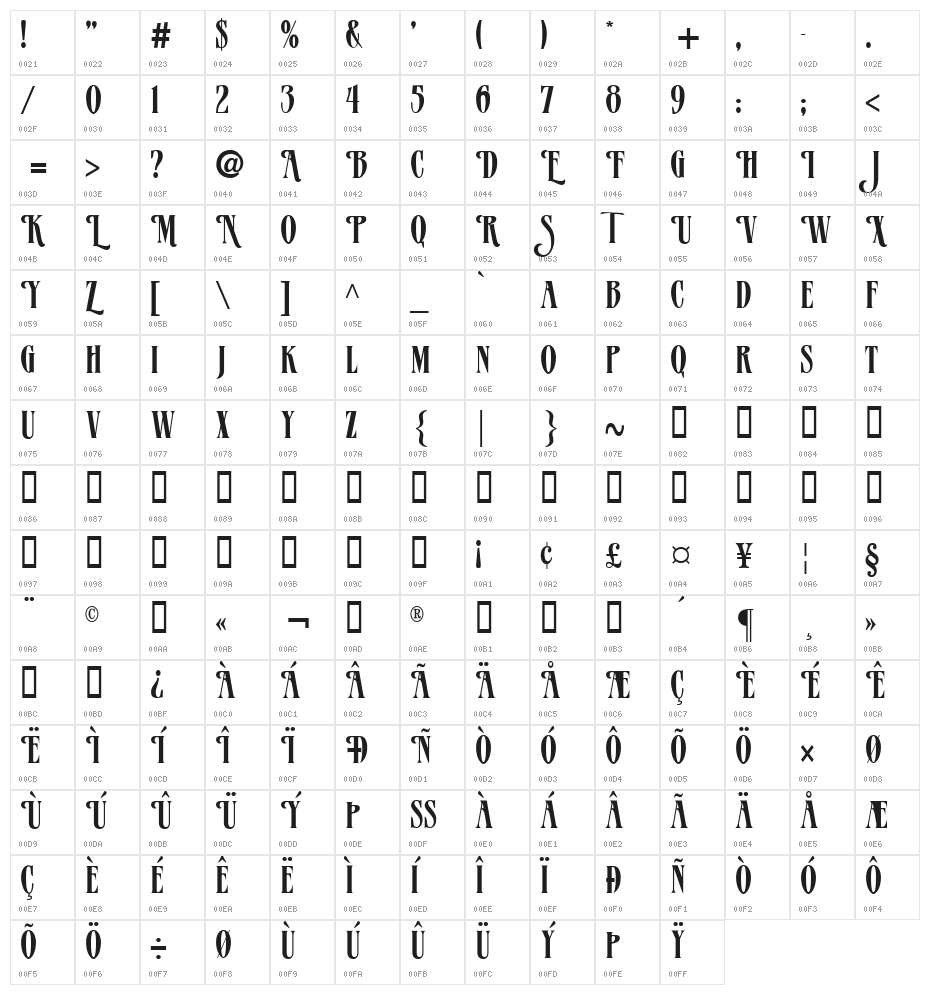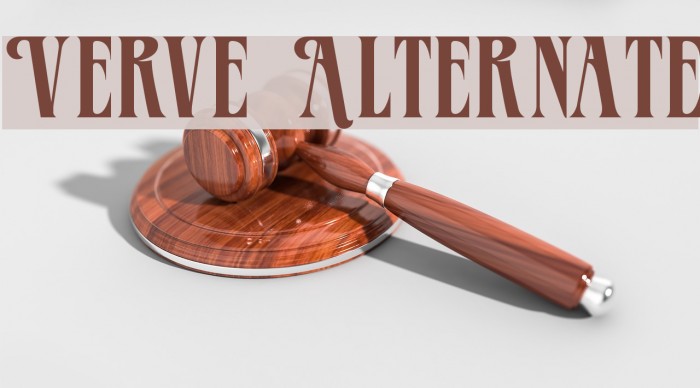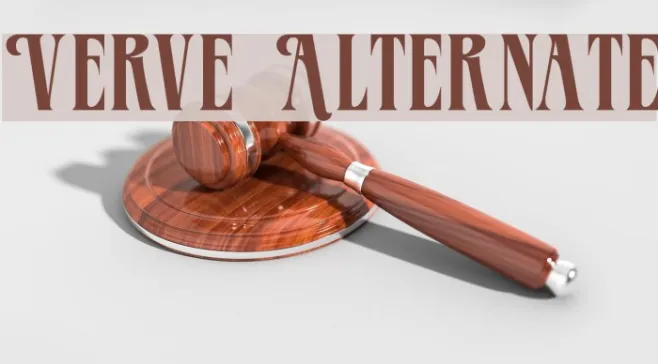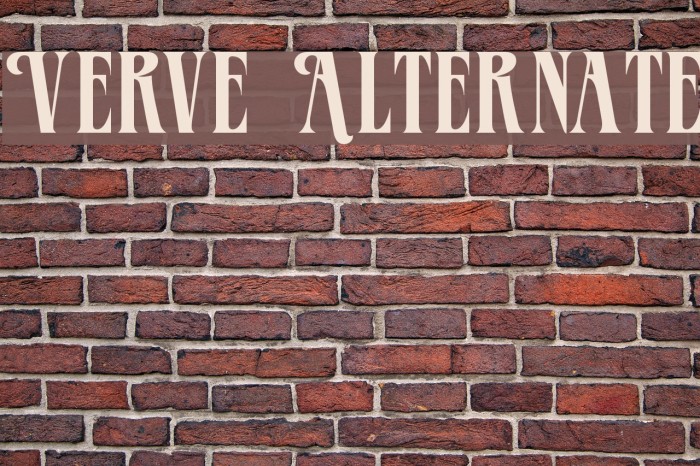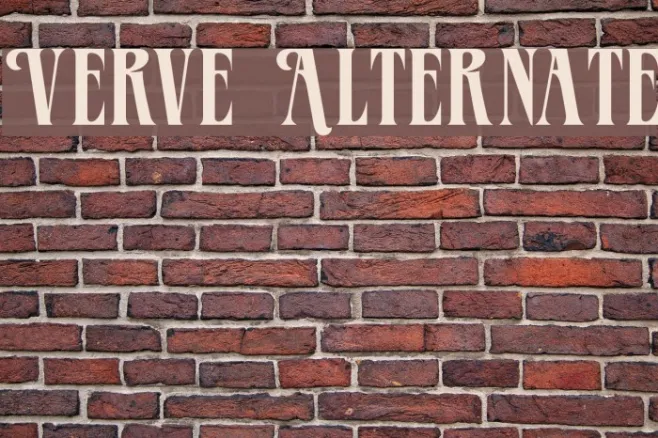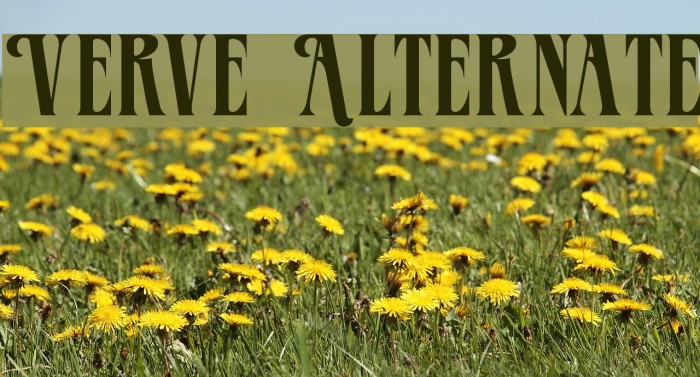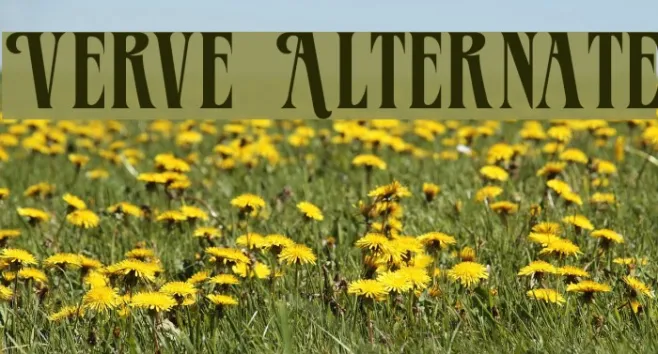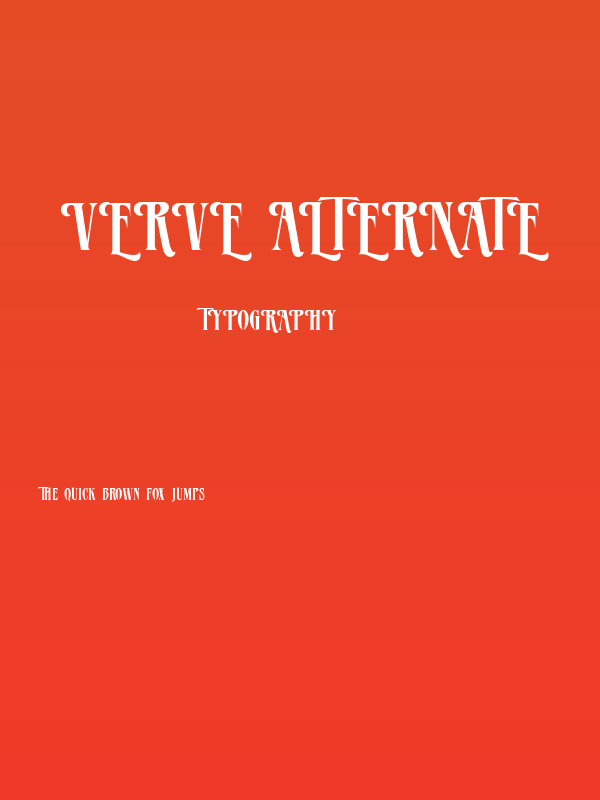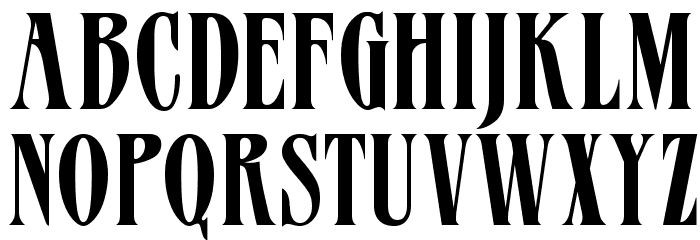
Verve Alternate Font
Verve Alternate Description
This font features a bold and dynamic style with a high contrast between thick and thin strokes, giving it a dramatic and eye-catching appearance. The uppercase letters are tall and elegant, with unique curves and angles that add a sense of movement and flair. The lowercase letters maintain a consistent style, complementing the uppercase with their own distinct character. Numbers are designed with the same boldness, ensuring readability and impact. Special characters are crafted to match the overall aesthetic, making this font versatile for various uses.